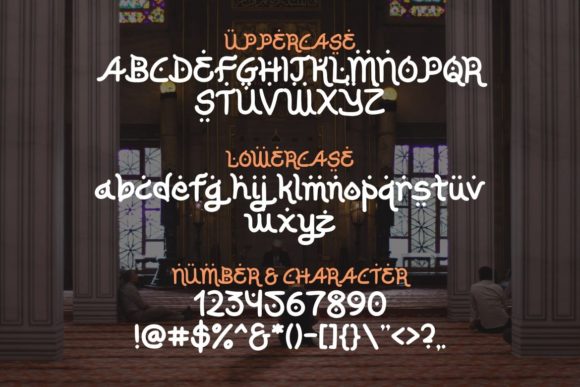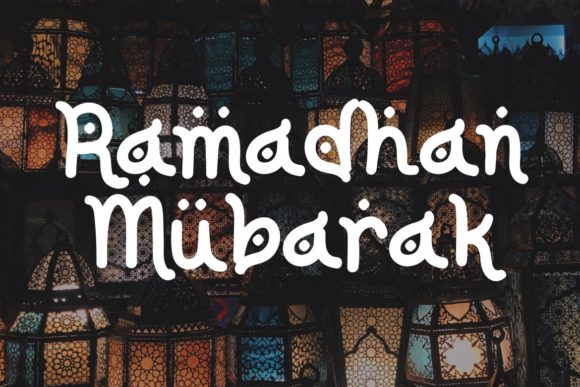
Musandam Font
db-ku.com - Script & Handwritten -- Musandam is a simple, delicate and Arabic influenced handwritten font. No matter the topic, this font will be an incredibly asset to your fonts’ library, as it has the potential to elevate any creation.